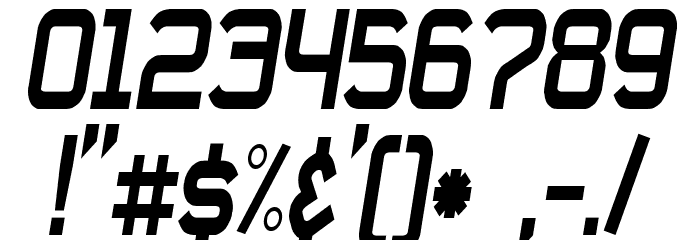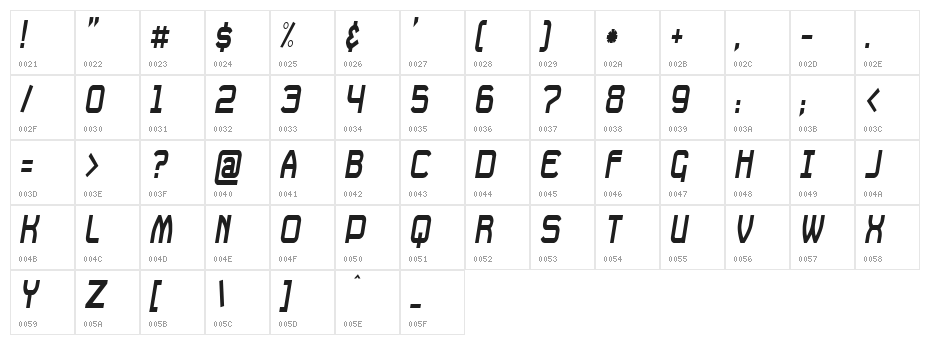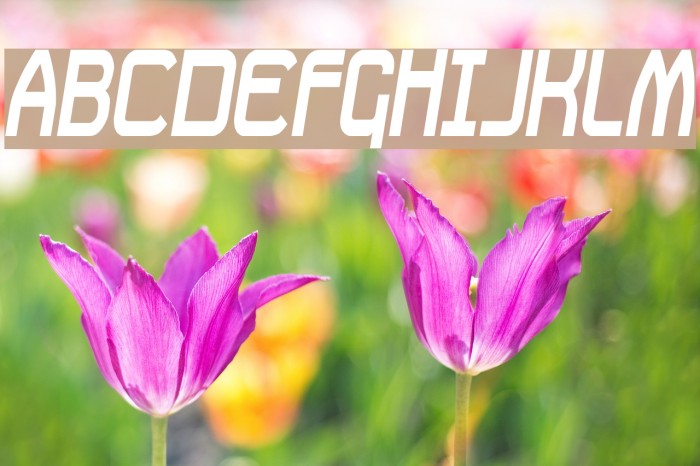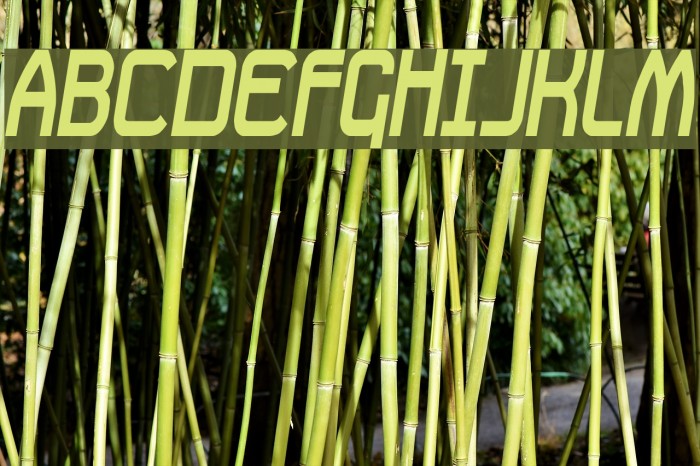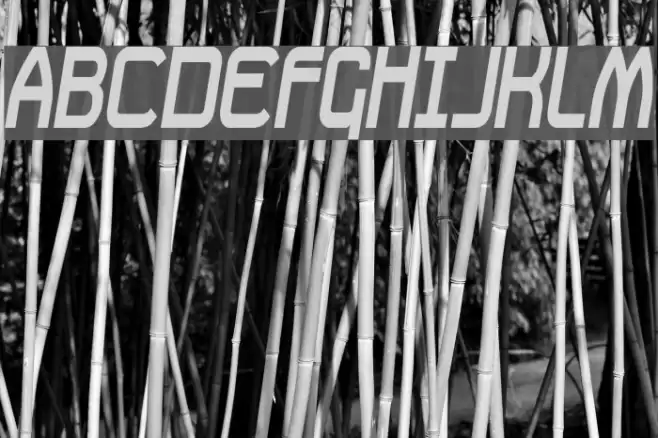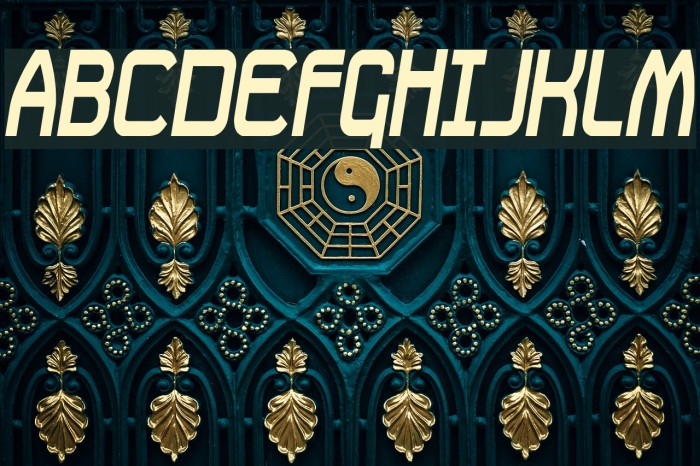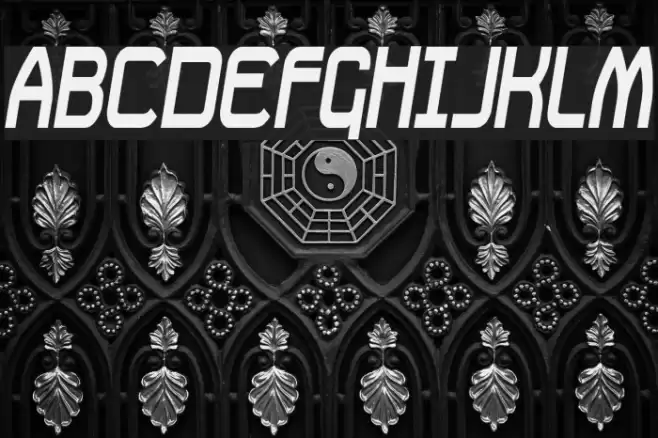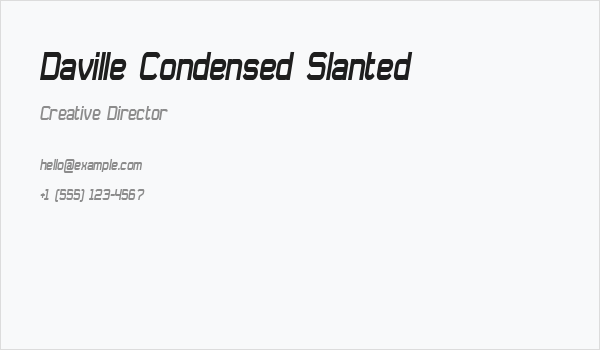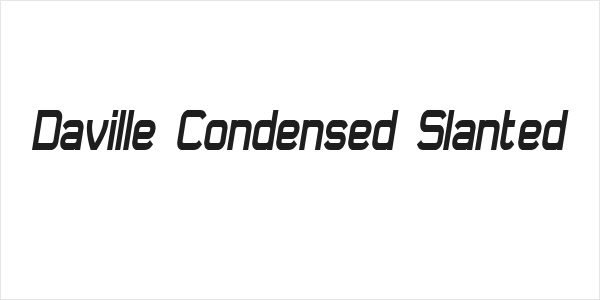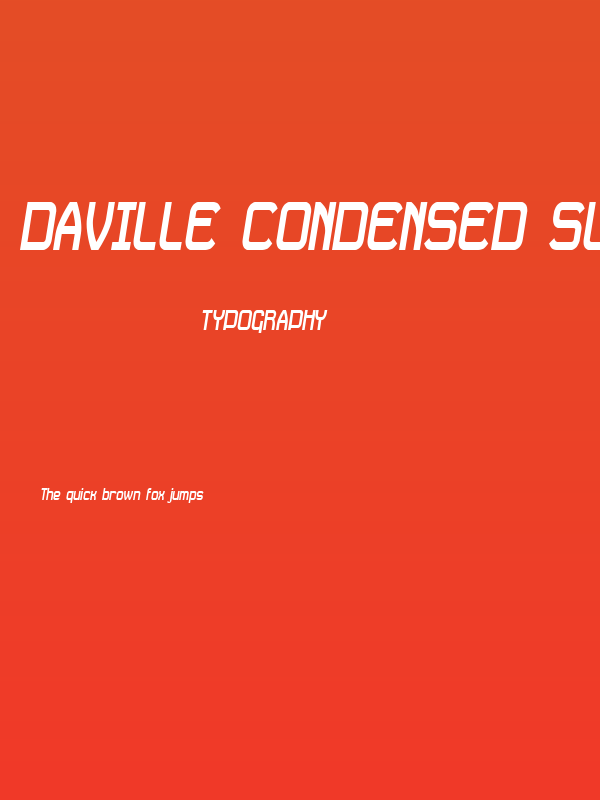
Daville Condensed Slanted Font
Daville Condensed Slanted Description
This font features a modern, slanted design with a condensed structure, giving it a sleek and dynamic appearance. The characters are bold and angular, with sharp edges and a consistent slant that adds a sense of motion. The uppercase and lowercase letters maintain a uniform style, while the numerals and special characters complement the overall aesthetic. The font's condensed width allows for efficient use of space, making it suitable for various design applications where a contemporary and energetic look is desired.
| Proposed Projects | Ideal for sports branding, dynamic posters, modern logos, and tech-related designs. |